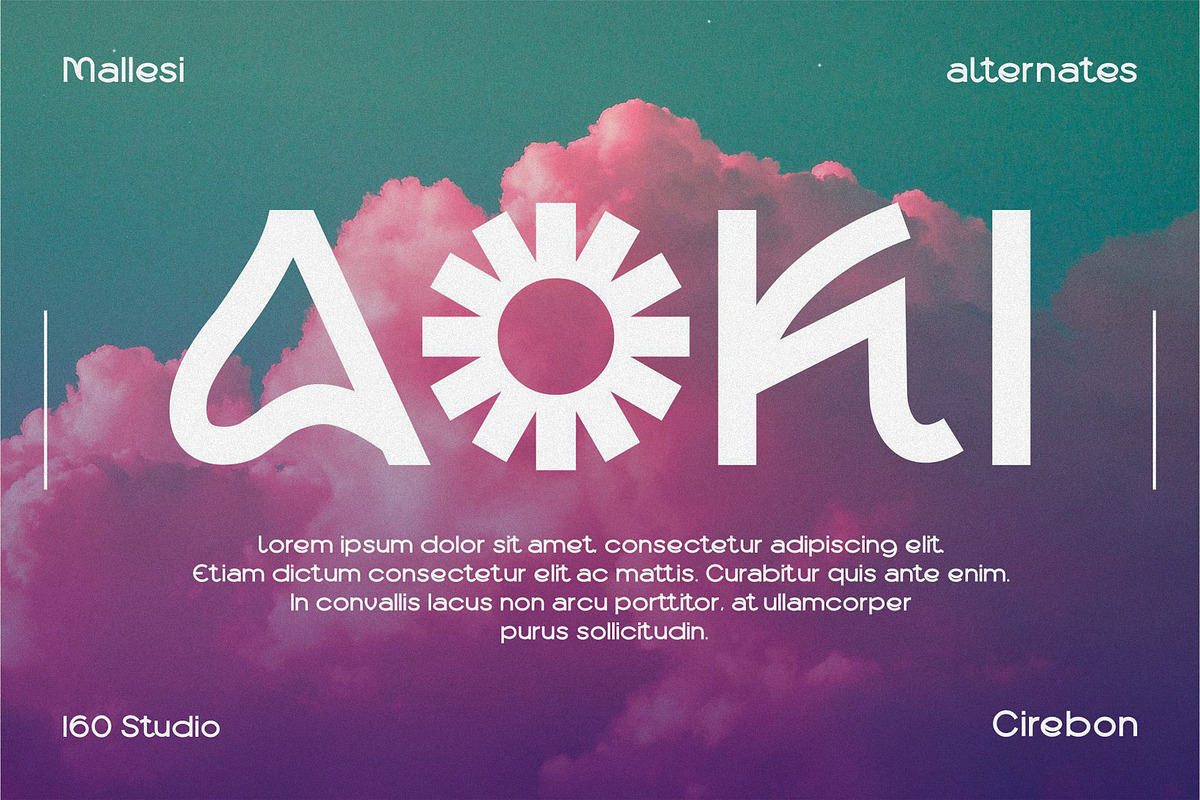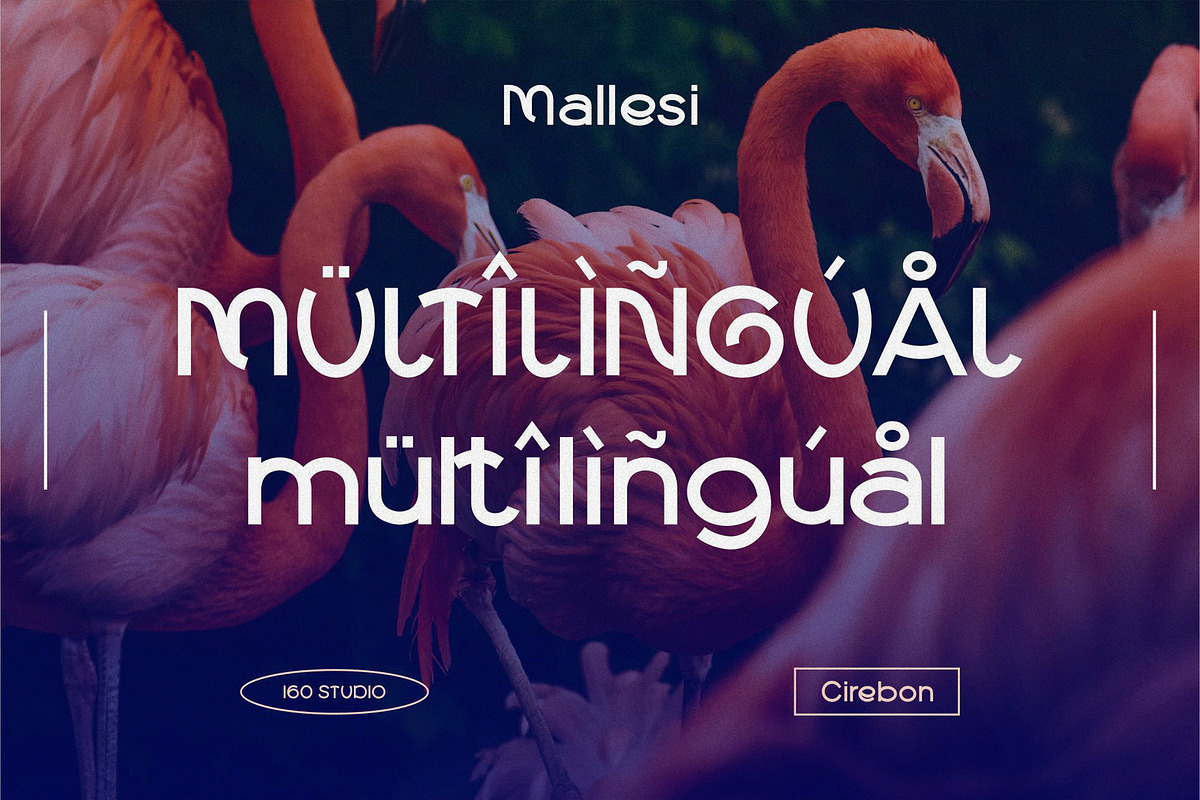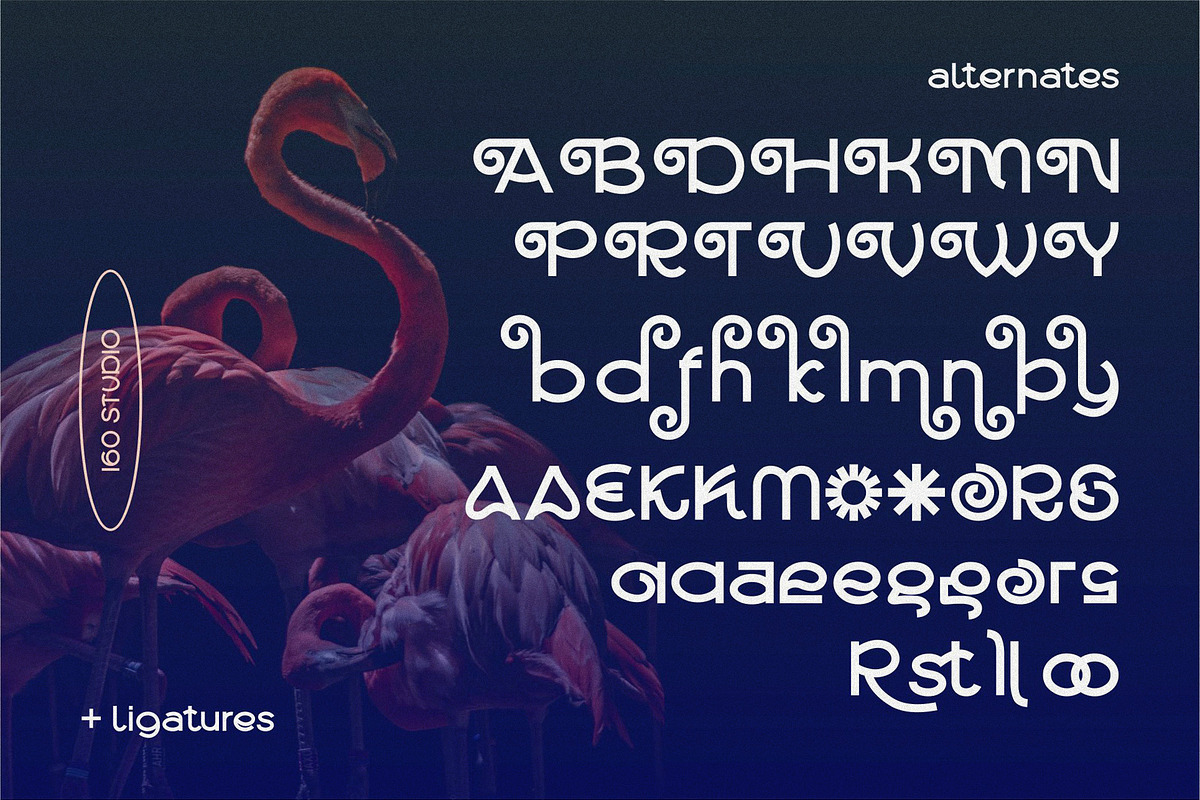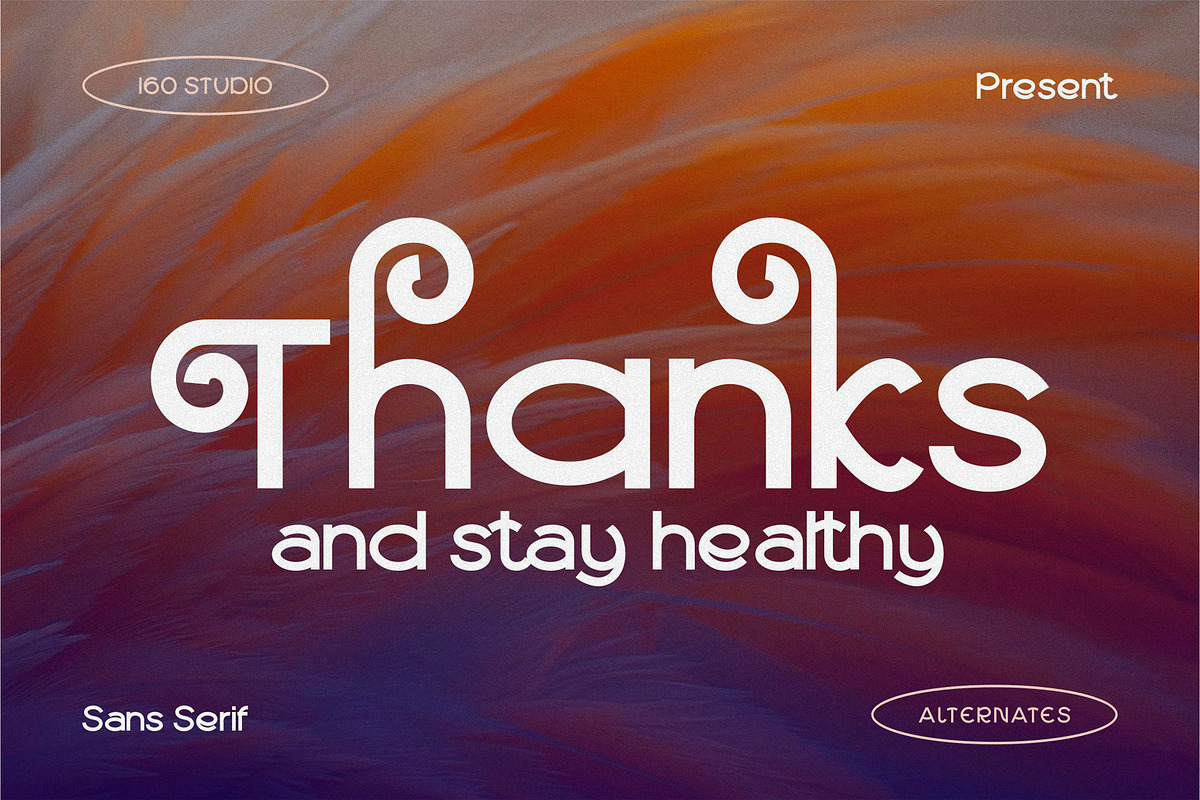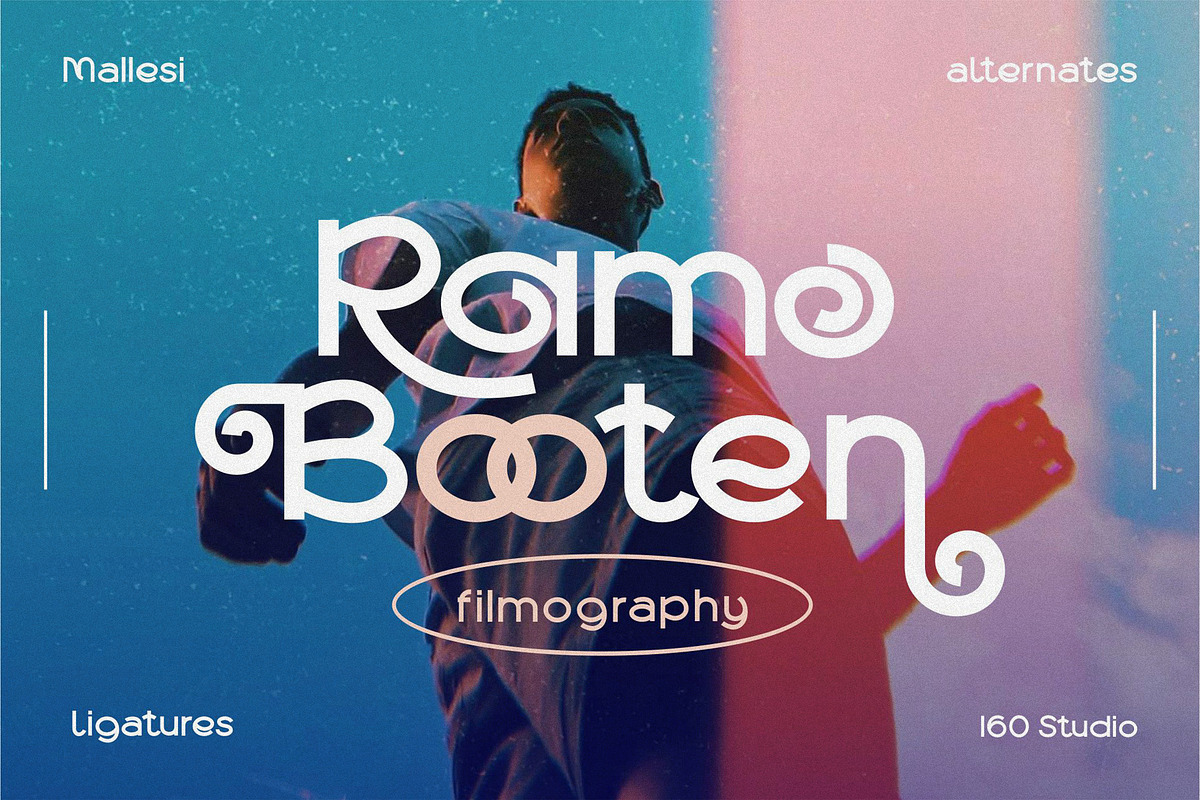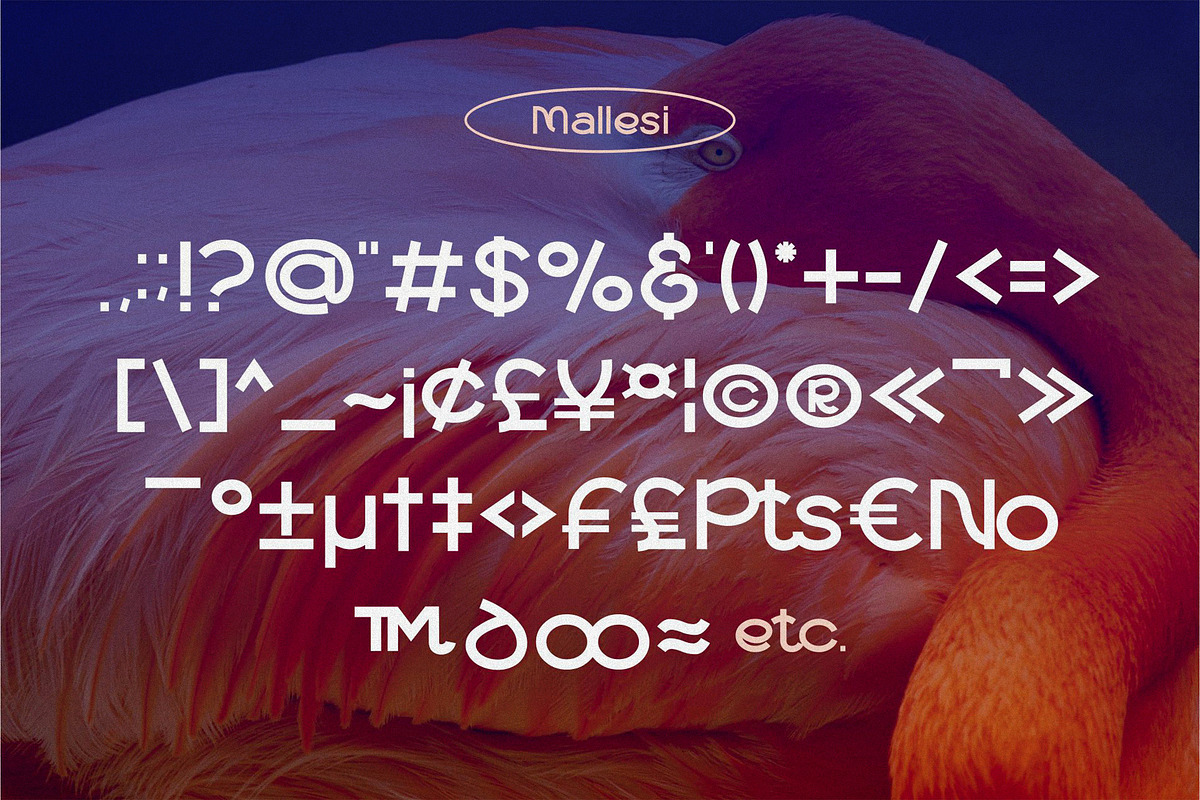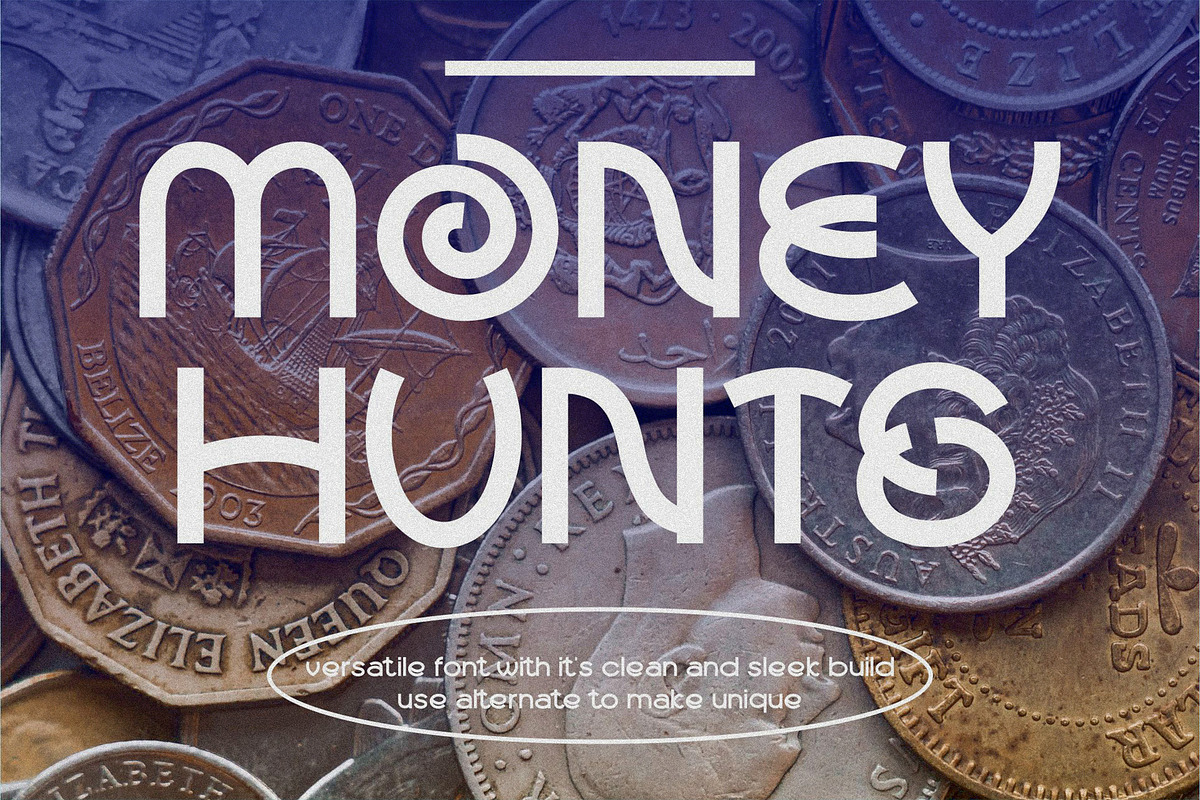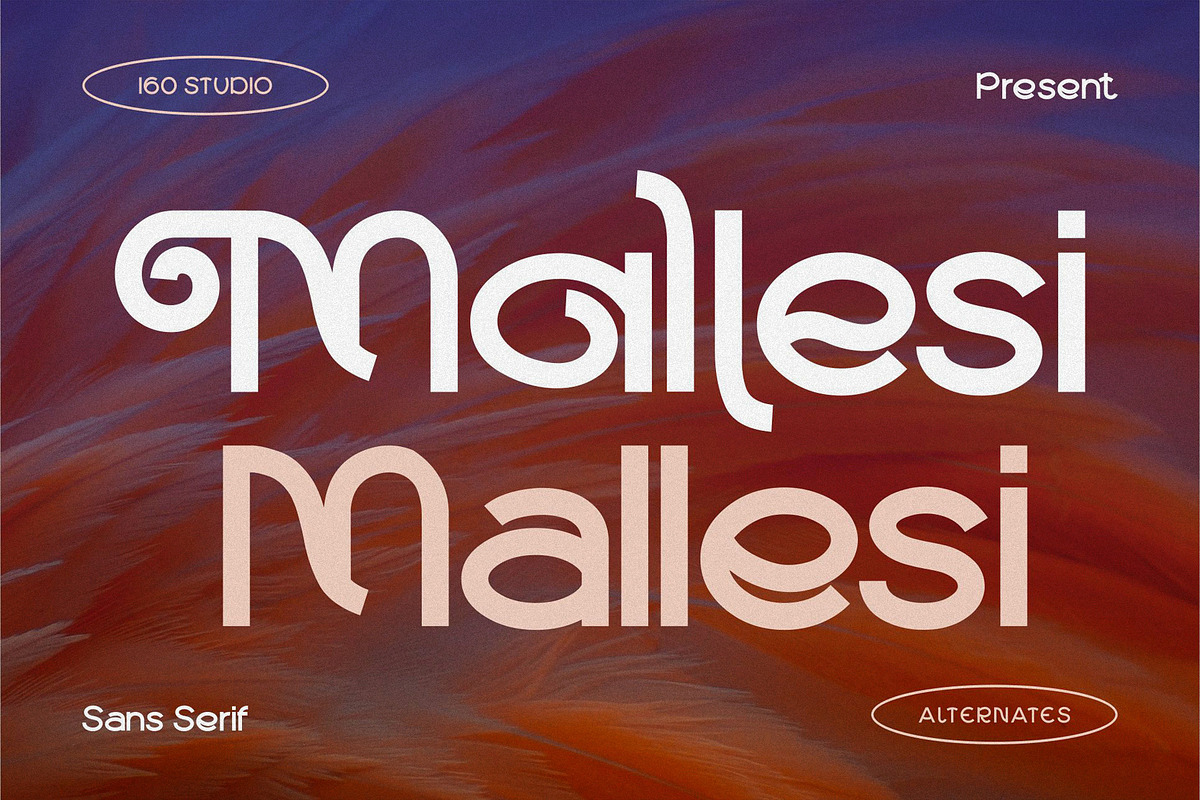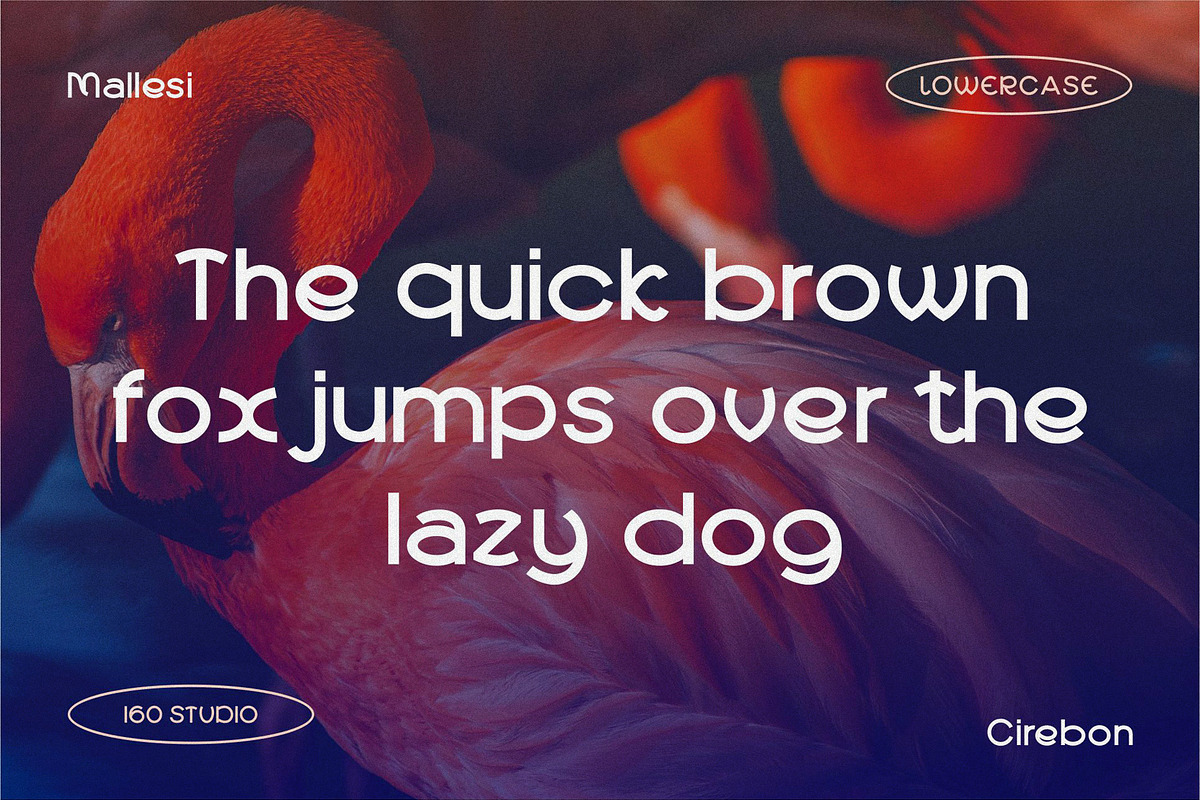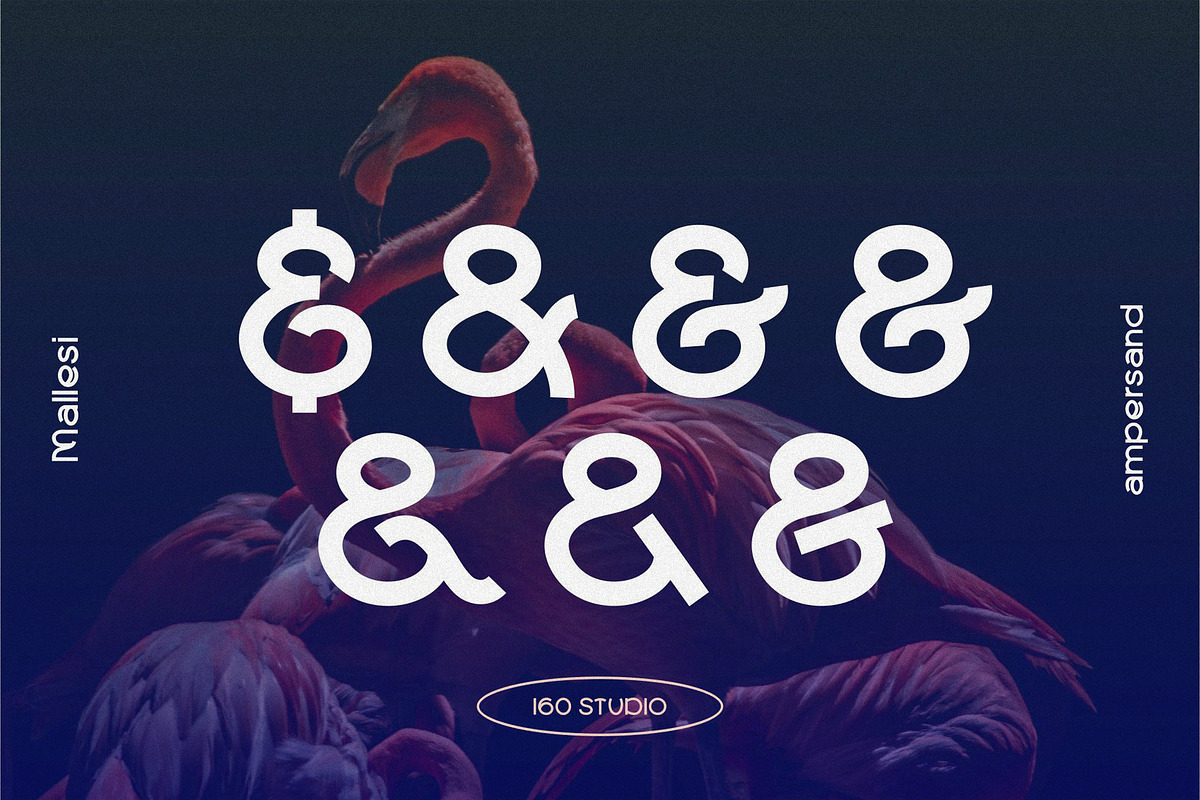
Mallesi Modern Sans
Mallesi is a versatile font with it's clean and sleek build. it can be simple and complex unique, because it have tons of alternate characters. The overall typeface is strong to bring order and alignment in between the letters . It is best used as Headline, Instagram, posters, web design, magazines, logos, or products.